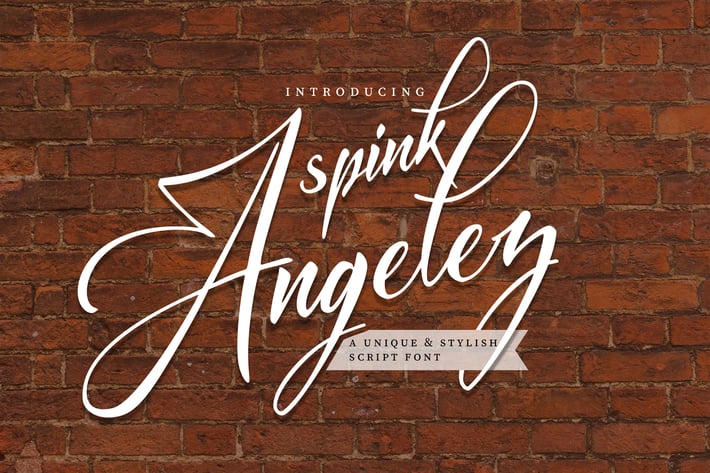
Spink Angelez | A Unique & Stylish Script Font
Spink Angelez | A Unique & Stylish Script Font with a calligraphy style, So beautiful on invitation like greeting cards, branding materials, business cards, quotes, posters, and more!